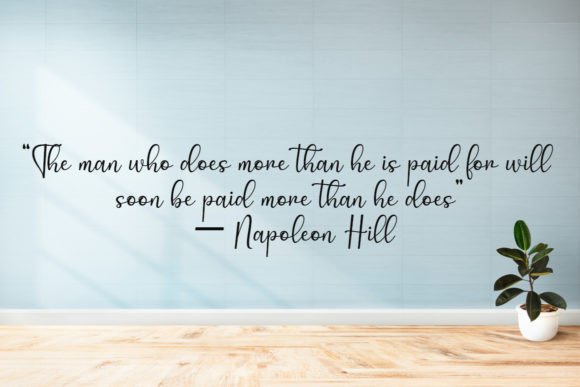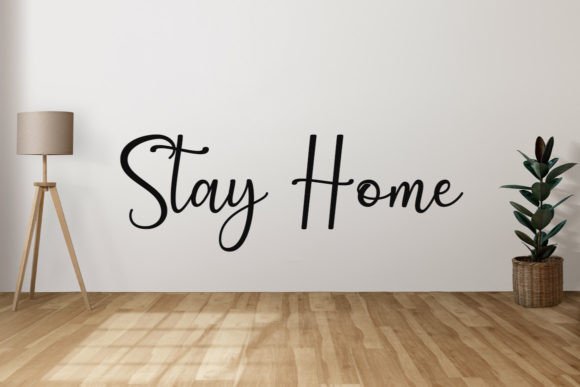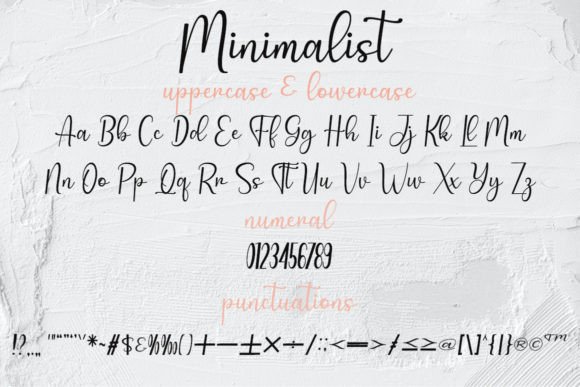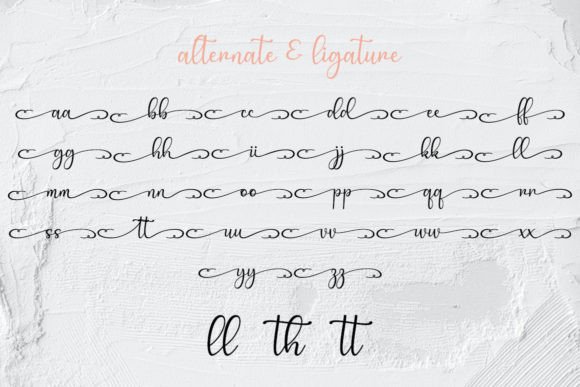
About Minimalist Font
Minimalist is an enchanting handwritten font crafted for a wide range of applications, including logos, branding, quotes, clothing, tote bags, business cards, websites, and more. Its captivating design is intended to elevate your projects to the highest level, making Minimalist a versatile and stylish choice.
Designed with simplicity and elegance in mind, Minimalist adds a touch of charm to your creative endeavors. Whether you’re establishing a brand identity or crafting promotional materials, this font’s enchanting strokes contribute to a clean and contemporary aesthetic.
One notable feature is Minimalist’s PUA encoding, allowing effortless access to all the glyphs and swashes. This flexibility enables easy customization, letting you tailor the font to suit the specific needs of your designs. The accessibility of these additional elements enhances the creative possibilities, making Minimalist a valuable asset for designers seeking versatility.
Whether you’re designing for digital or print media, Minimalist adapts seamlessly, bringing a sense of sophistication to your projects. Fall in love with the font’s enchanting allure, and let it be the element that elevates your creative work to new heights.
In summary, Minimalist is more than just a font; it’s a versatile and enchanting design tool. Explore its potential, embrace its simplicity, and let Minimalist add a touch of elegance to your logos, branding, quotes, and various other creative projects.